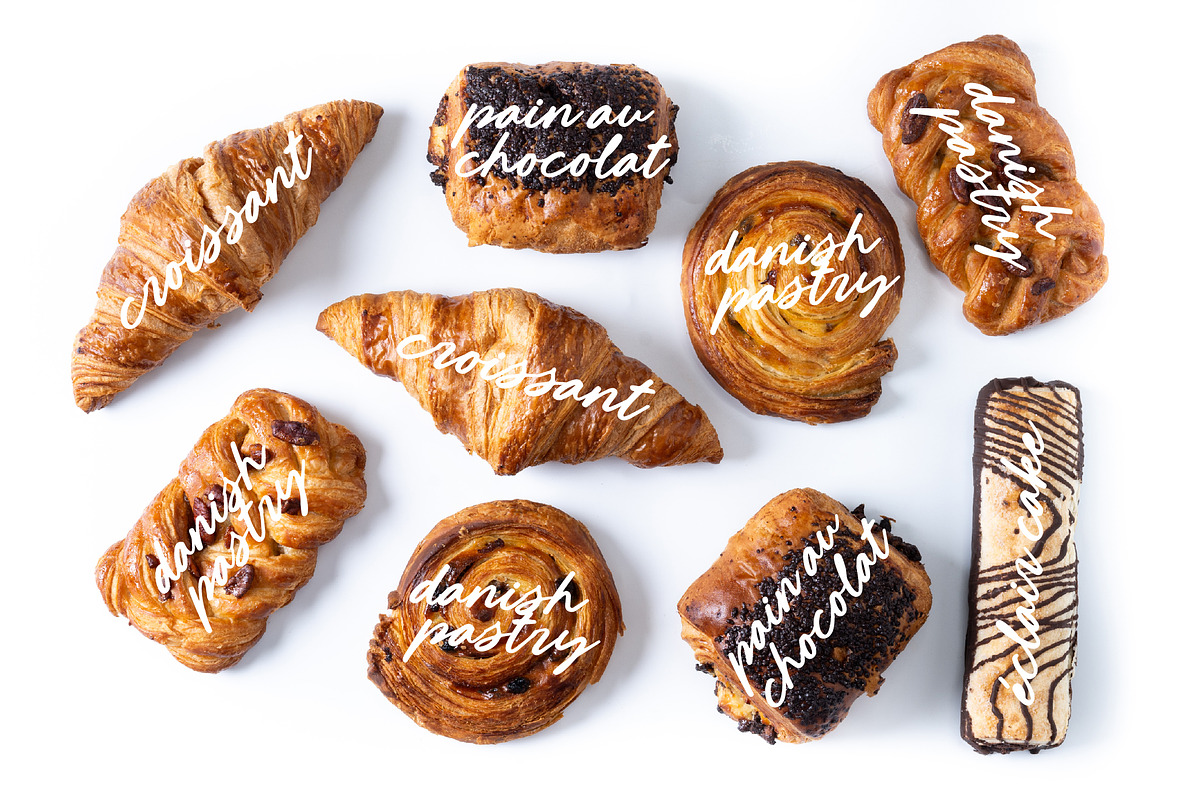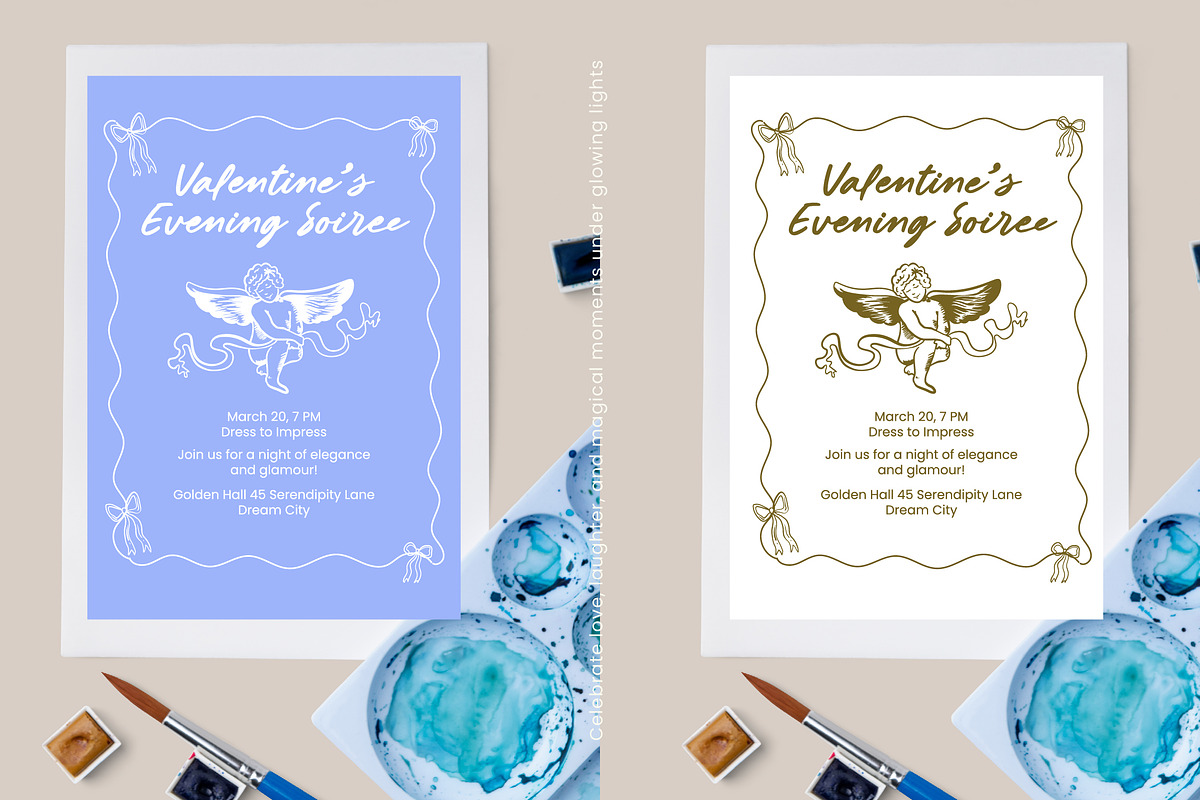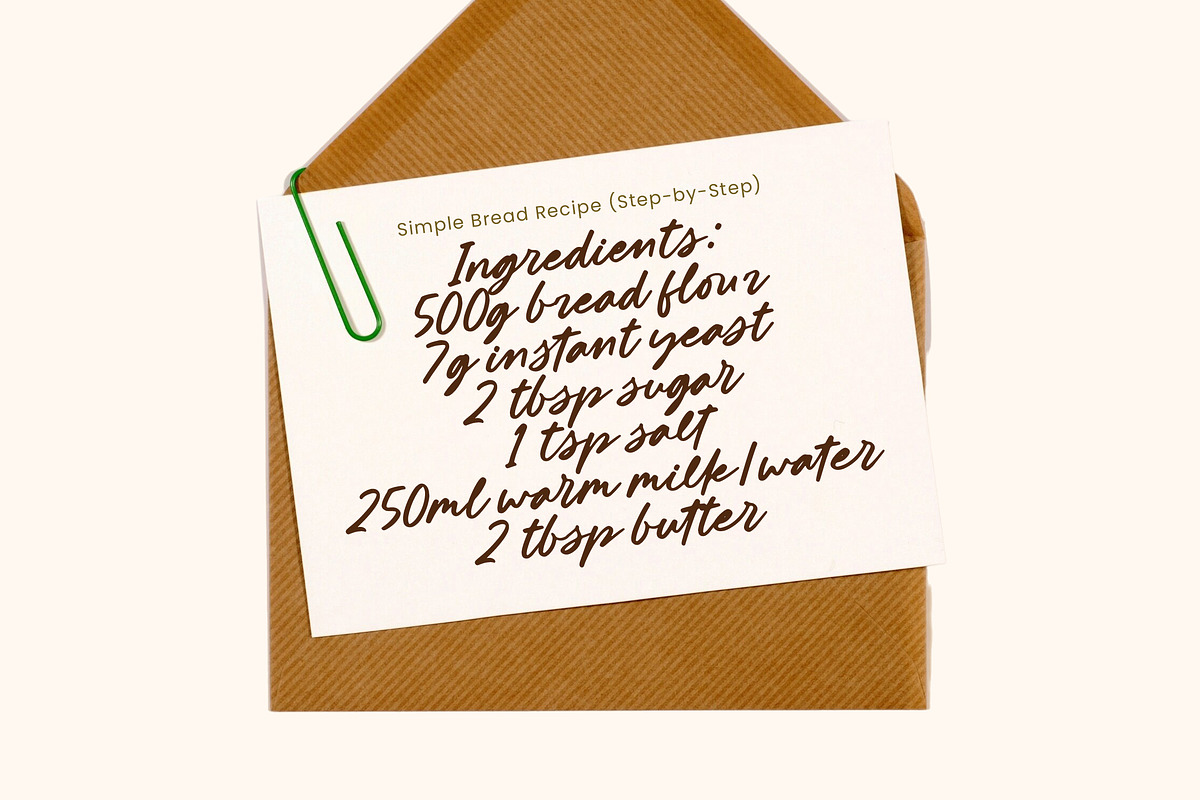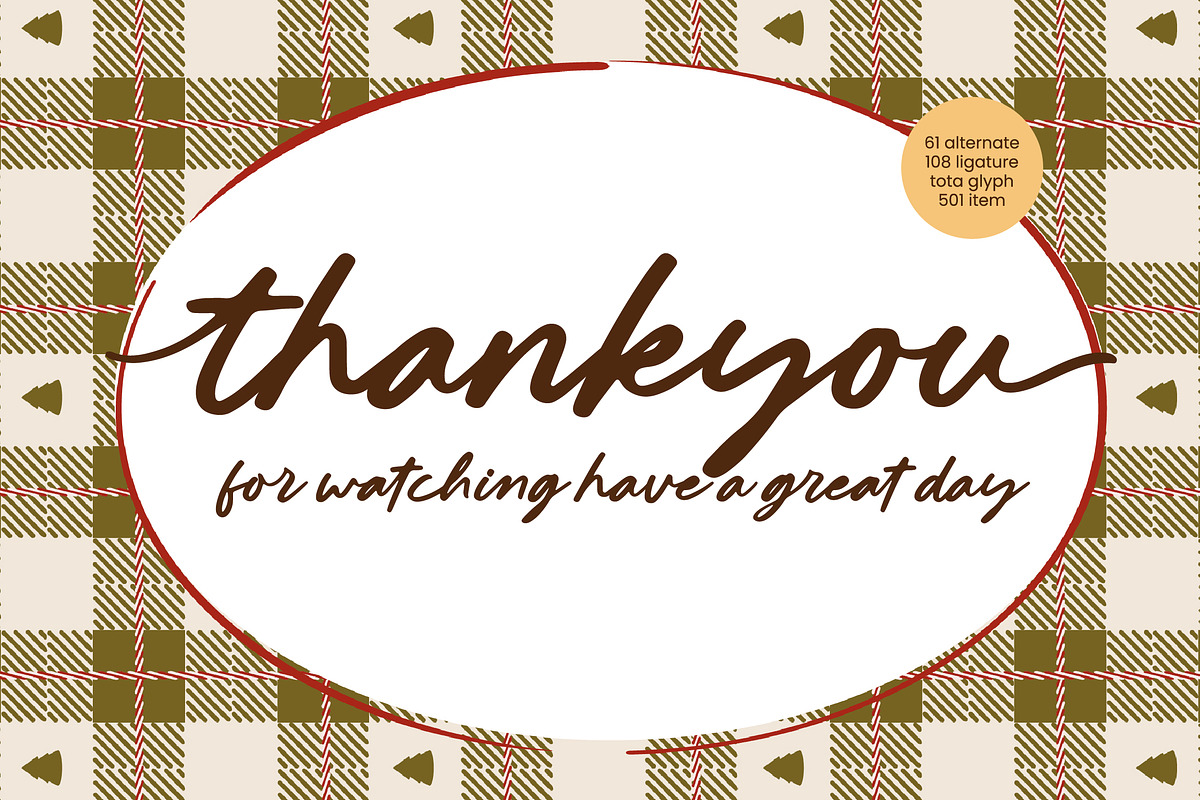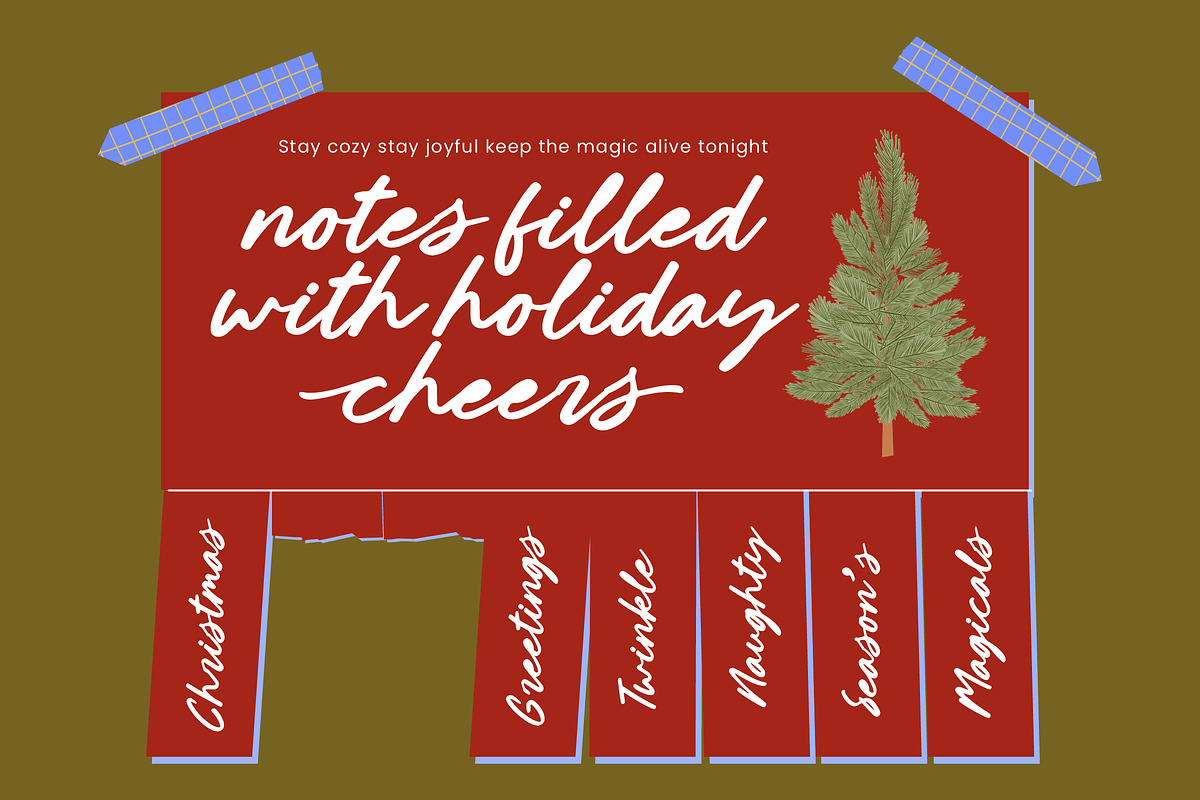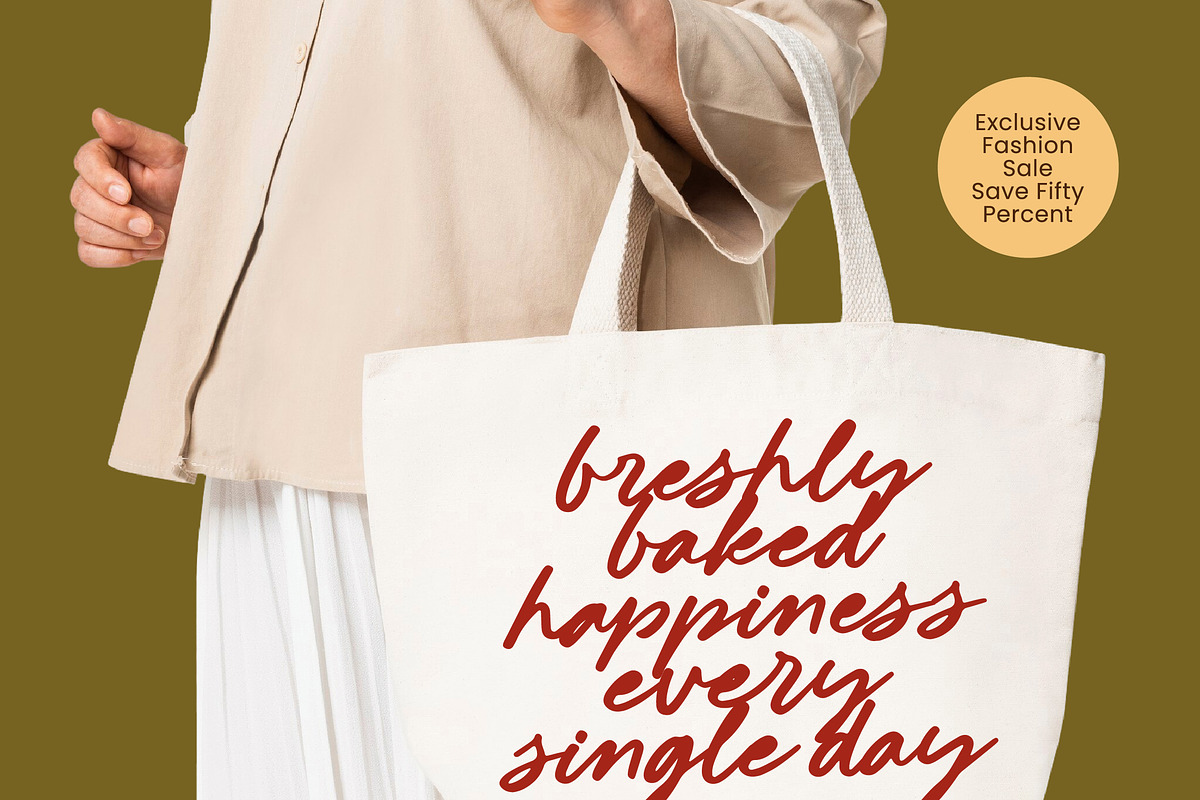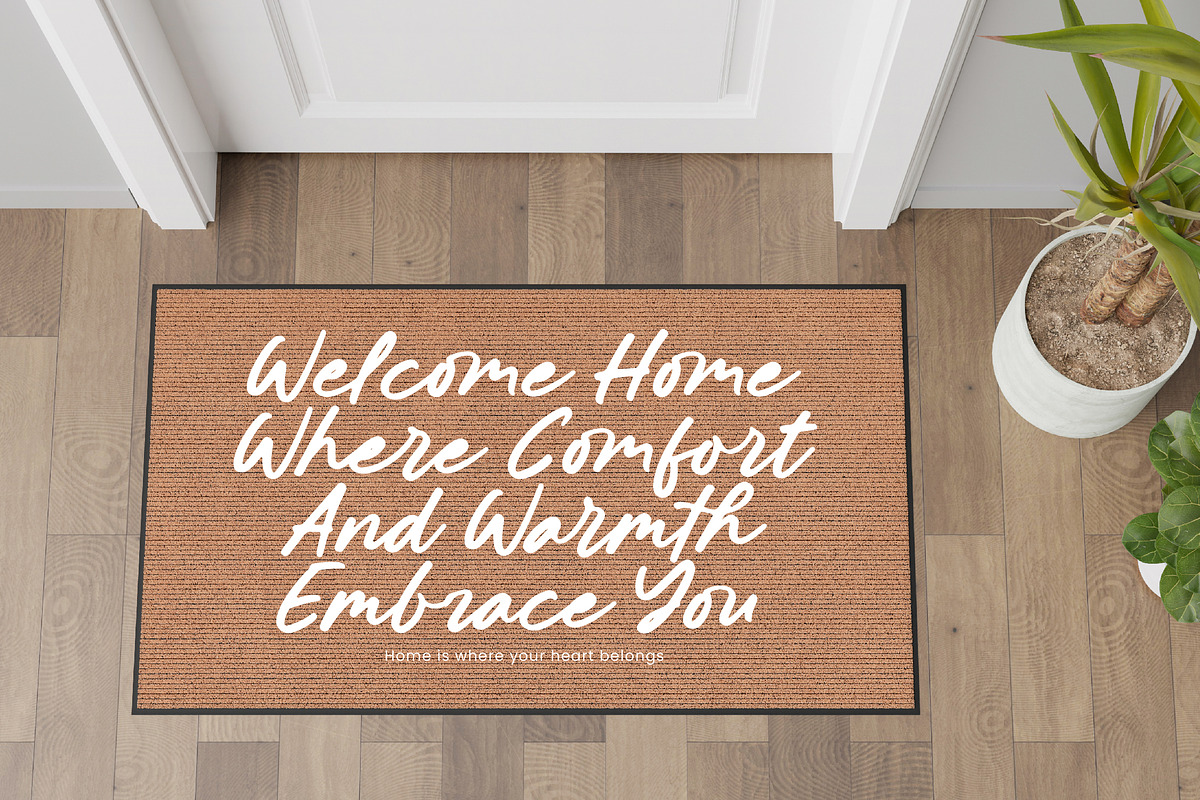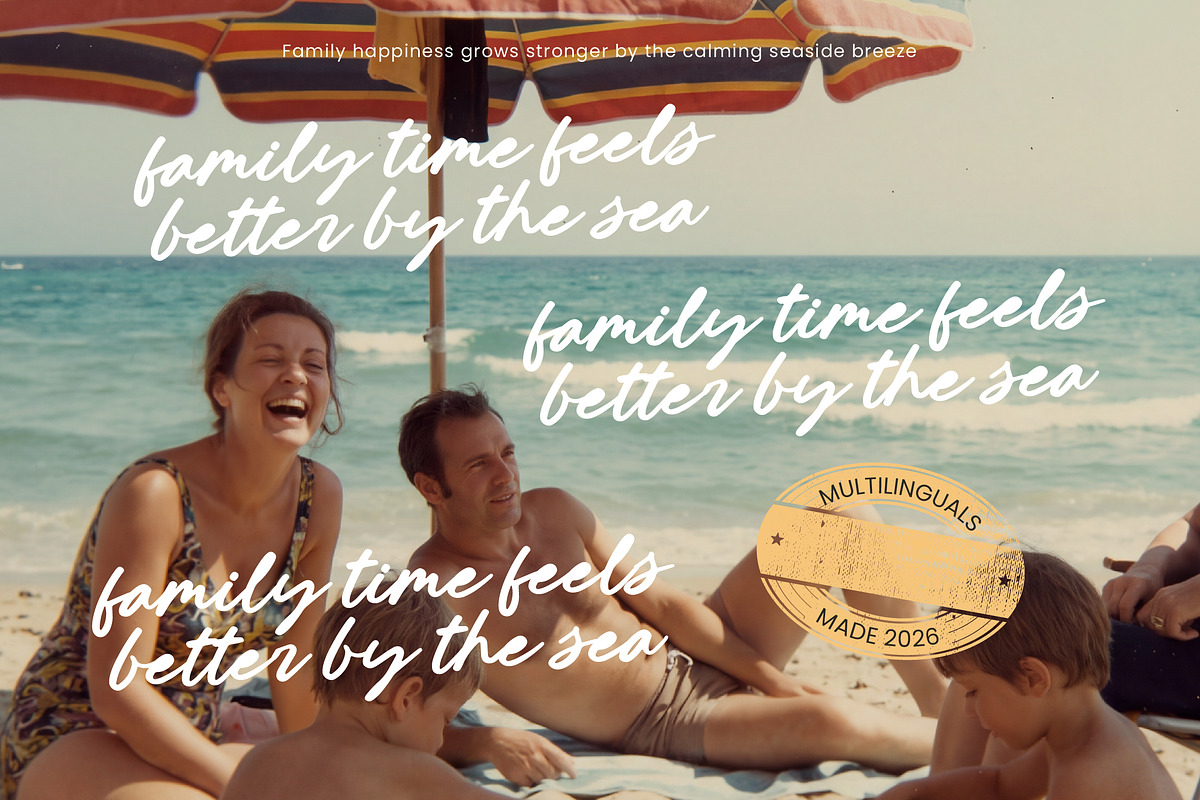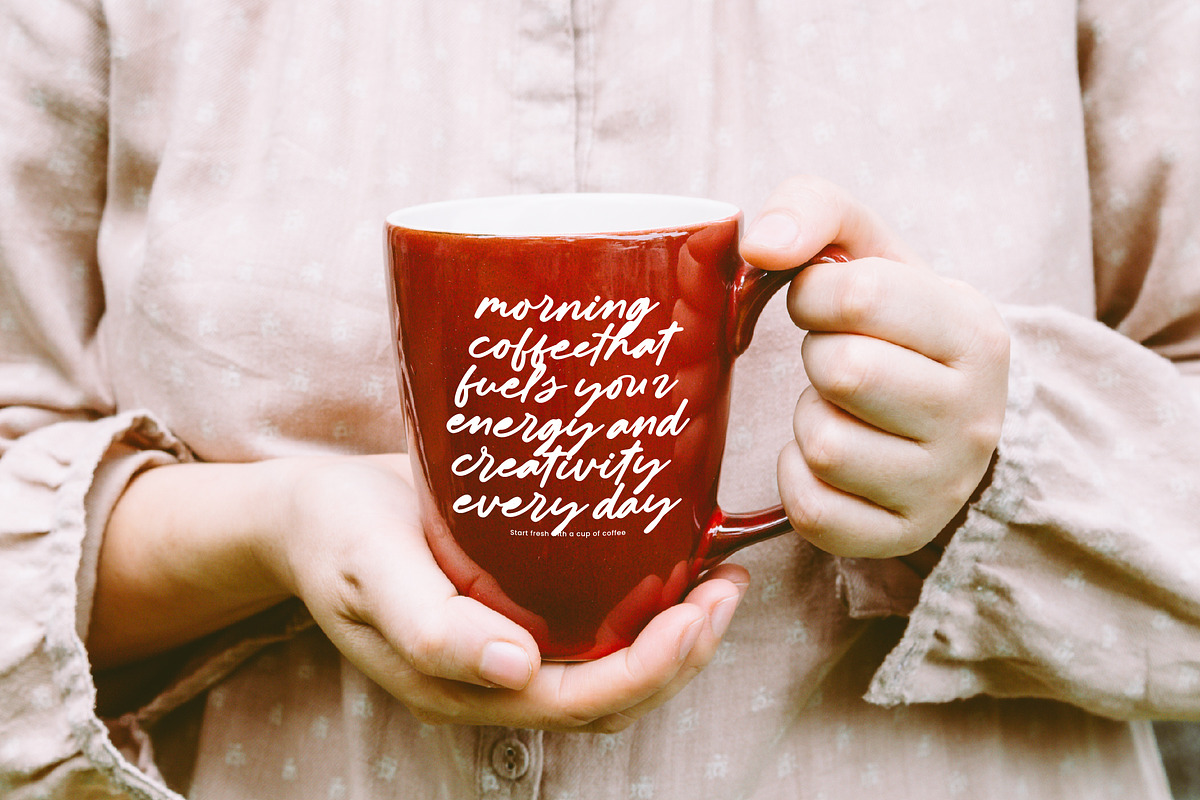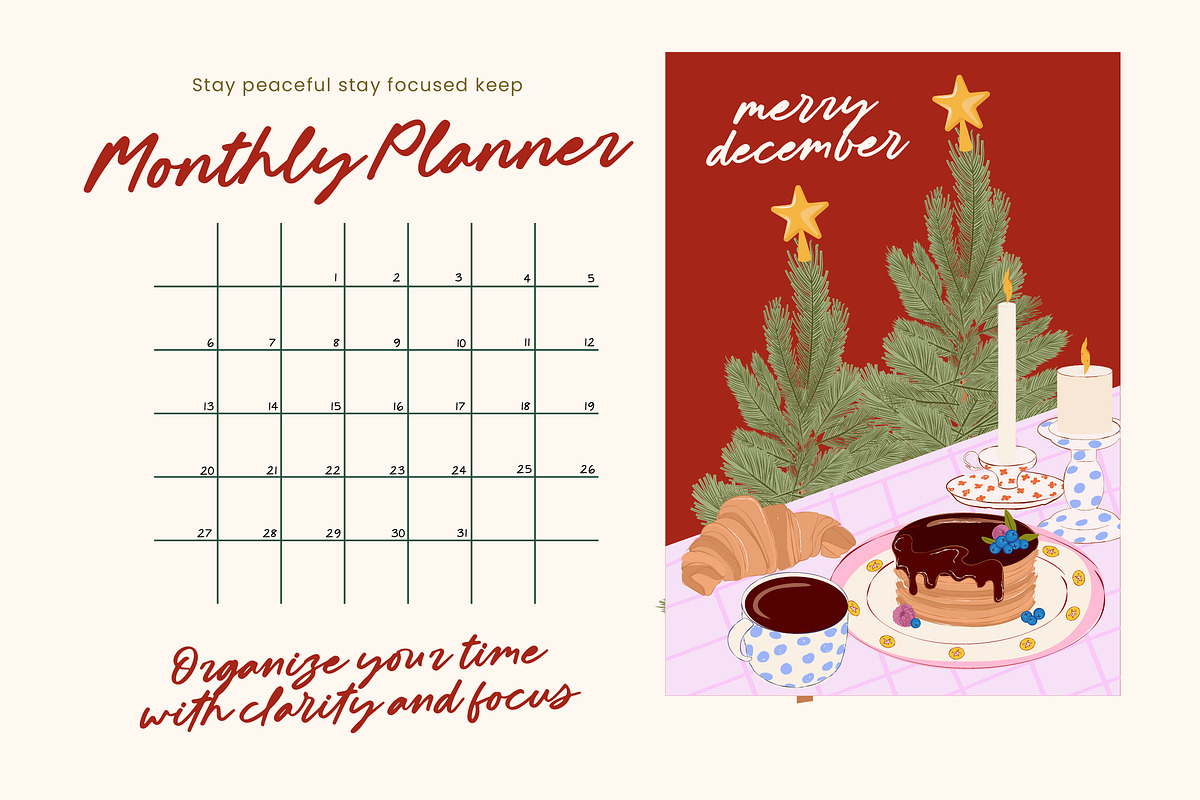
Barlinotes - New Handwritten Script
Barlinotes - New Handwritten Script Font , Elevate your creative vision with the organic, effortless flow of Barlinotes - New Handwritten Script Font. This typeface embodies a handcrafted charm and fluid strokes that bring a sense of natural rhythm to every digital canvas. Its medium-weight monoline aesthetic ensures maximum legibility while maintaining a personal, intimate feel that resonates with modern audiences seeking authenticity.
Discover the ultimate solution for sophisticated branding and premium identity design. Barlinotes - New Handwritten Script Font is perfect for luxury packaging, editorial layouts, and high-end wedding stationery where elegance is paramount. Its versatile nature also makes it an excellent choice for impactful social media graphics and bespoke apparel branding, providing a signature look that feels both unique and professional.
Break boundaries with unparalleled flexibility through an expansive library of 501 glyphs, including 108 ligatures and 61 stylistic alternates. With its extensive multilingual support, Barlinotes - New Handwritten Script Font adapts seamlessly across global markets, making it incredibly versatile for international projects. These OpenType features allow designers to customize their typography, ensuring that every layout remains dynamic and cohesive regardless of the language or medium.